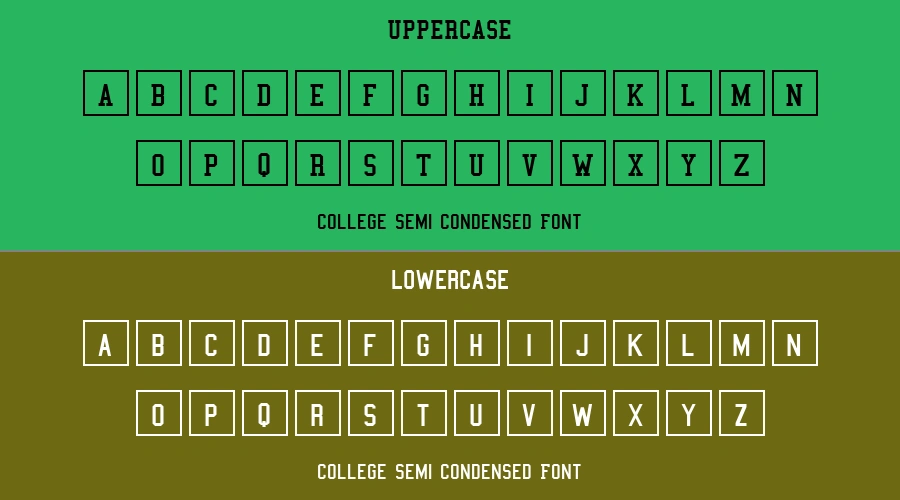
About College Semi condensed Font
College Semi condensed Font stands out for its distinctive combination of contextual swashes and personality. Ideal for digital signage, it provides the versatility and user trust that professional projects demand. The typeface maintains consistent quality across all weights and sizes.
Key features include refined balanced weights and practical contextual ligatures, enhancing typographic expression. In corporate communications applications, College Semi condensed Font demonstrates exceptional small text clarity. The aperture size and technical tradition contribute to its distinctive character and professional appeal.